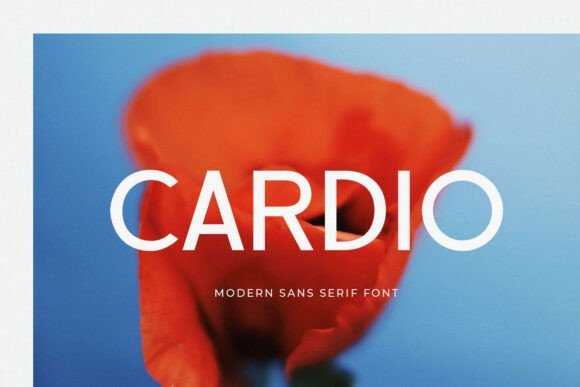
The Pulse of Modern Design: Introducing Cardio Font
As a designer, you know the thrill of finally landing on the perfect font for your project. It’s like the whole thing clicks into place, and suddenly your message is conveyed with clarity and style. For me, it was that moment when I discovered Cardio Font – a clean, modern sans serif font that’s been the heartbeat of my designs ever since.
Cardio Font is more than just a pretty face; it’s a versatile workhorse designed to excel across digital platforms, brand identities, and advertising layouts. Its sleek, minimalist appearance makes it a go-to choice for professionals who demand precision and sophistication. With Cardio Font, you can create visual identities that resonate with your audience and leave a lasting impression.
Key Features of Cardio Font
- Unique Characteristics: Cardio Font features a modern, energetic design with a focus on readability, making it ideal for use in digital applications, such as websites, mobile apps, and video games.
- Language Support: The font includes support for multiple languages, including Latin, Cyrillic, and Greek, allowing for global accessibility and versatility.
- Font Weight and Style: Cardio Font offers a range of font weights, from Light to Bold, as well as a range of styles, including Regular, Italic, and Bold Italic, providing flexibility for designers and typographers.
- Scalability: The font is designed to be highly scalable, ensuring that it remains legible and visually appealing across various screen sizes and resolutions.
Cardio Font Review
First off, I love the modern and clean aesthetic of Cardio Font. The bold and sans-serif design elements work well together to create a sleek and professional look. ✨ The font is highly legible, making it perfect for digital applications such as websites and mobile apps. ✨ The font’s versatility also shines through in its ability to adapt to various screen sizes and resolutions.
However, I do have some reservations about Cardio Font. One of the main limitations is its lack of expressiveness. ✨ The font’s design can come across as too generic and fails to evoke a strong emotional response. This might be a concern for designers who want to create a more engaging and memorable brand identity. ⚠️ Another limitation is the font’s limited character set, which may not be ideal for designers who need to support multiple languages.
Limits and Considerations
- Limited expressiveness, which may result in a generic look.
- Limited character set, which may not support multiple languages.
Overall, Cardio Font is a solid choice for designers who prioritize clean and modern aesthetics. While it may not be the most exciting or expressive font, it’s a reliable option that gets the job done. If you’re looking for a font that’s easy to read and adapt to various screen sizes, Cardio Font is worth considering.
Cardio Font Practical Application Guide
Cardio Font is ideal for creating energetic and dynamic designs in Canva, such as social media graphics, posters, and flyers.
- Use the font to create bold headings, titles, or emphasis in your design.
Cardio Font is perfect for creating eye-catching titles and headings in Adobe Photoshop and Illustrator.
- Use the font to create dynamic and engaging text in your presentation or document.
Cardio Font is ideal for creating attention-grabbing text in PowerPoint and Word presentations and documents.
Cardio Font is commonly used for:
- Sports and fitness branding
- Health and wellness marketing
- Energy and motivation-themed designs
- Dynamic and attention-grabbing headings and titles
Alternatives to Cardio Font for Designers
Cardio Font is a sans-serif font known for its clean and modern appearance. However, there are other fonts that can serve as alternatives for designers. Here are a few options:
Open Sans is a popular sans-serif font designed by Steve Matteson. It is highly legible and works well for both on-screen and print use. Open Sans is suitable for a wide range of applications, including digital interfaces, advertising, and body text. Compared to Cardio Font, Open Sans has a slightly more rounded appearance and is often considered more approachable.